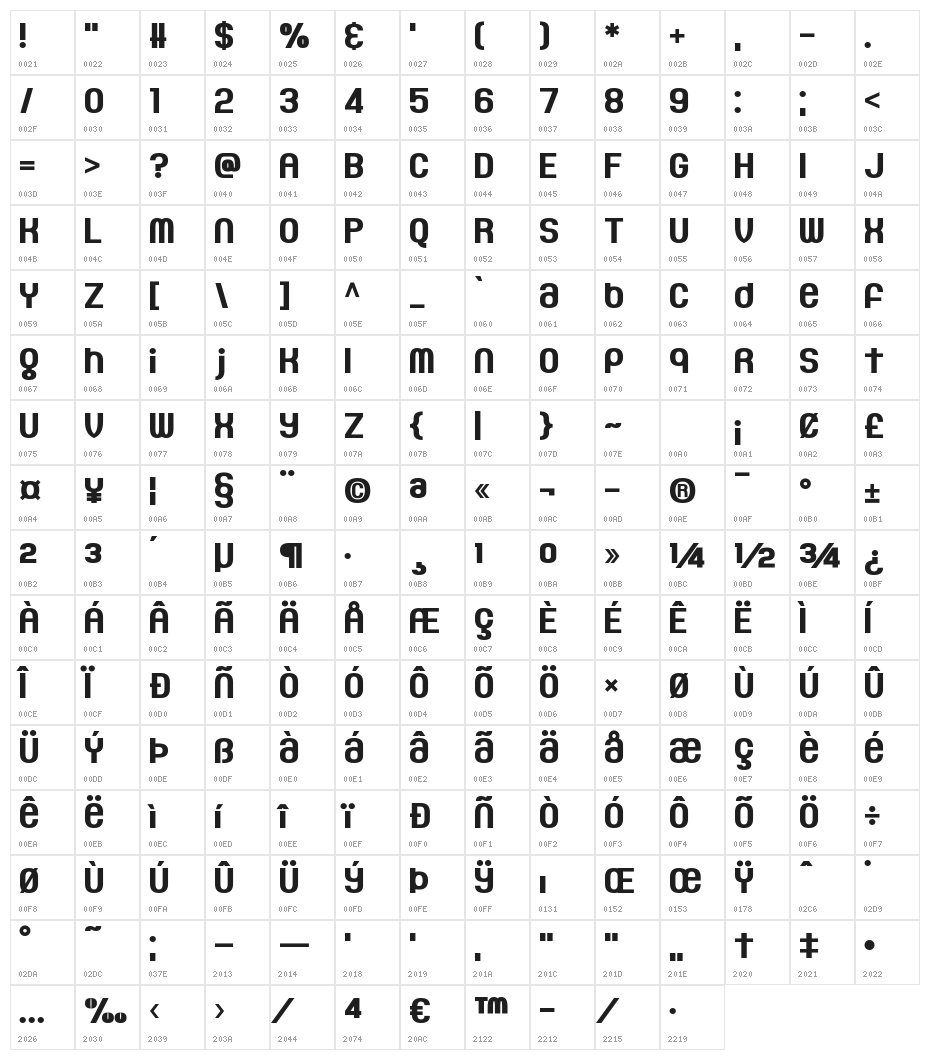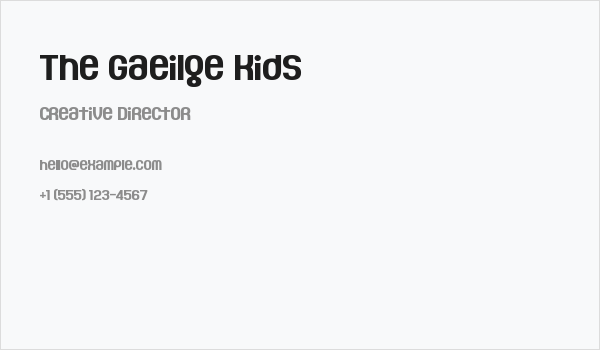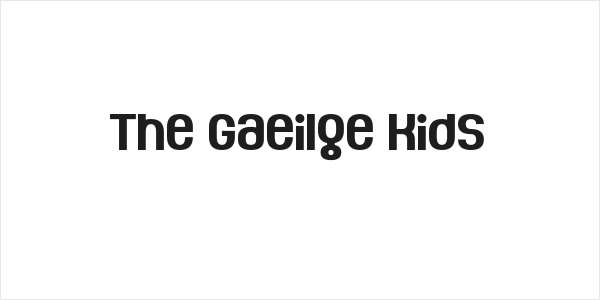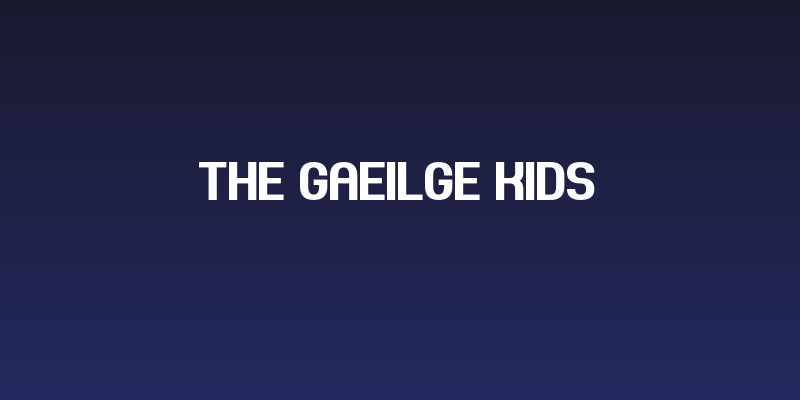
The Gaeilge Kids Font
The Gaeilge Kids Description
This font features a bold and rounded style with a modern, playful aesthetic. The uppercase and lowercase letters maintain a consistent width, creating a uniform appearance. The rounded edges and smooth curves give it a friendly and approachable feel. The numerals and special characters are designed to match the overall style, ensuring cohesion across all elements. This font is highly legible, making it suitable for various applications where clarity and impact are essential.
| Proposed Projects | Ideal for children's books, educational materials, playful branding, and advertising campaigns. |